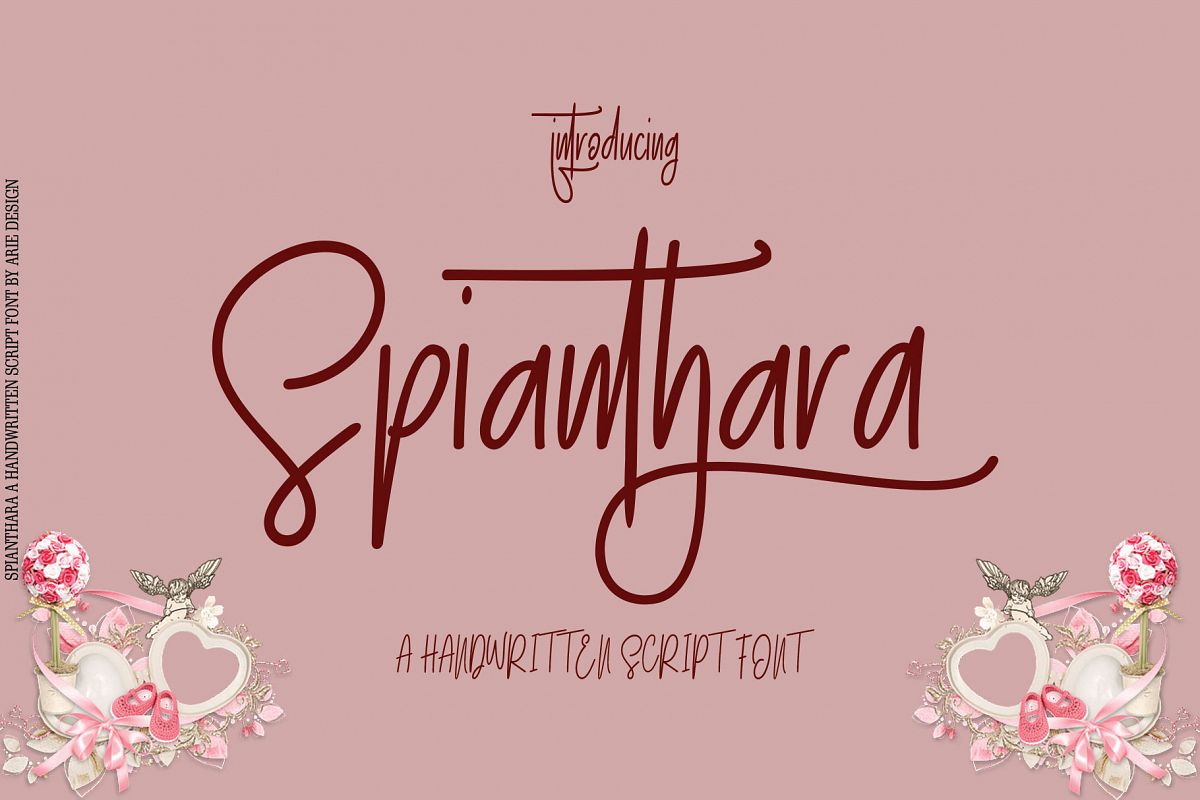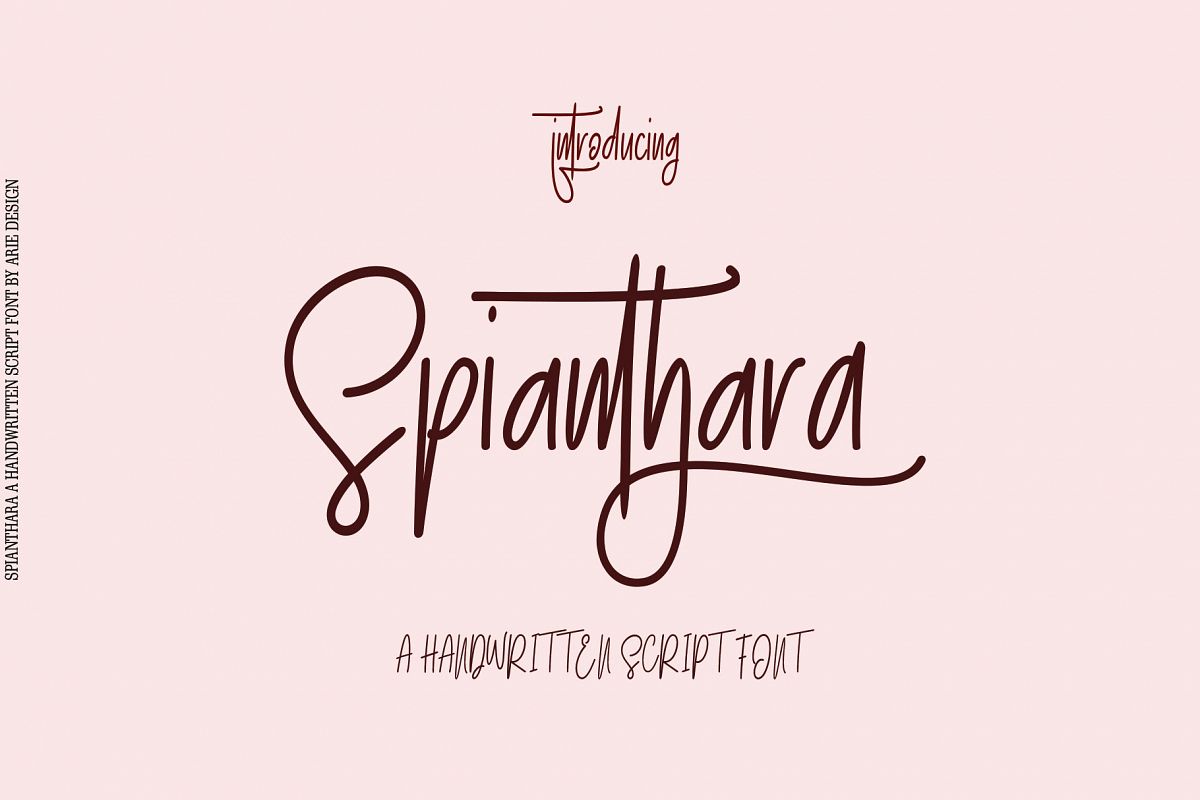
Spianthara
If you are looking to add a touch of elegance to your current project do not miss this one, namely Spianthara Script. You'll get yourself a remarkable collection of modern script font, each featuring many OpenType features and multiple languages. Beautiful, modern and made by hand, this magnificent collection are sure to give your toolbox typeface lift plump feasible.
Spianthara script : A script that is so beautiful with gorgeous grounds, and furnished with fine lines are perfect for use for many purposes. such as title, signature, logo, correspondence, wedding invitations, letterhead, signage, labels, newsletters, posters, badges, Branding, Greeting Cards, etc. It comes with a handy set of Open Type, Stylistic Alternates, stylistic sets, ligatures and swashes and all to add an authentic touch to your design.
Features Basic Latin A-Z and a-z Numbers Symbols